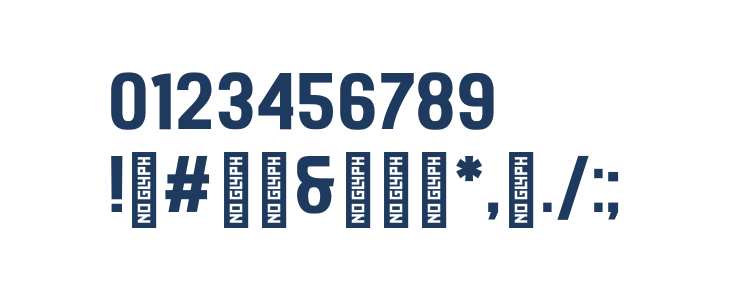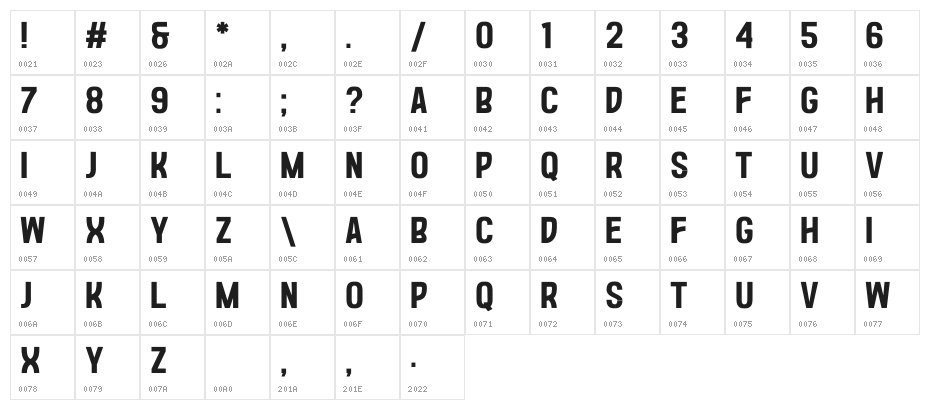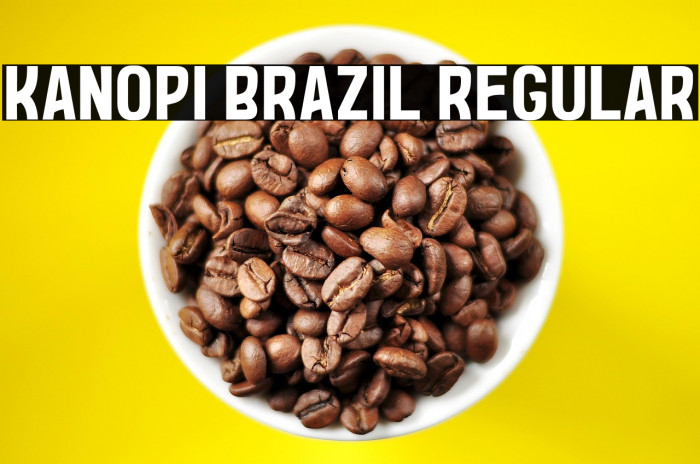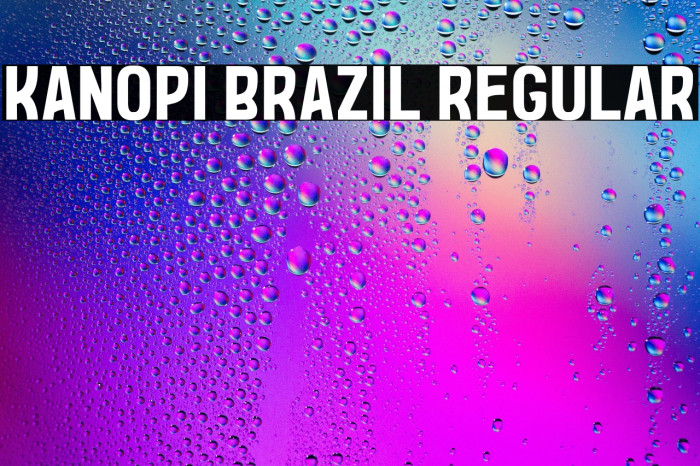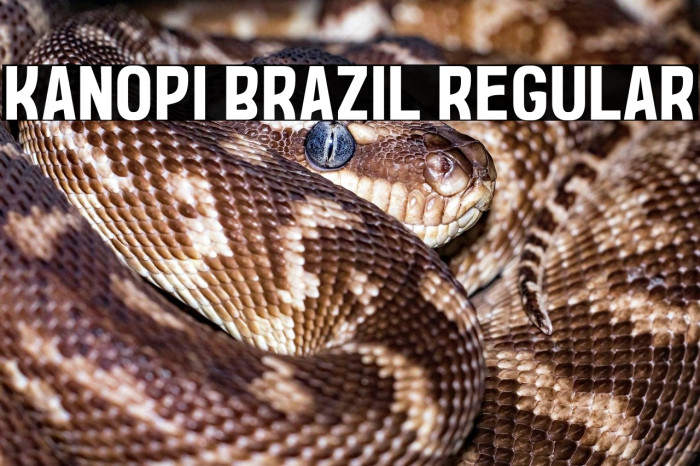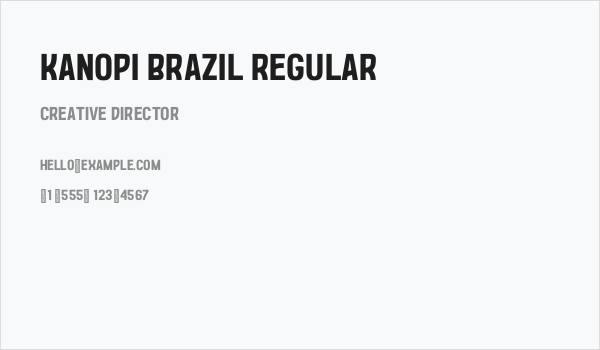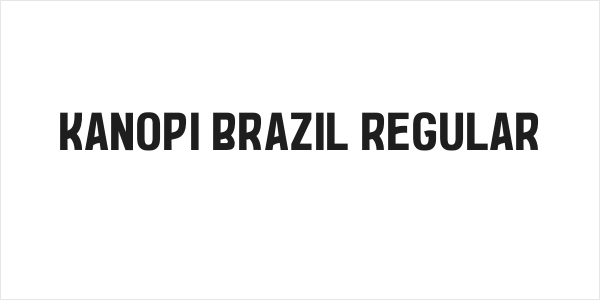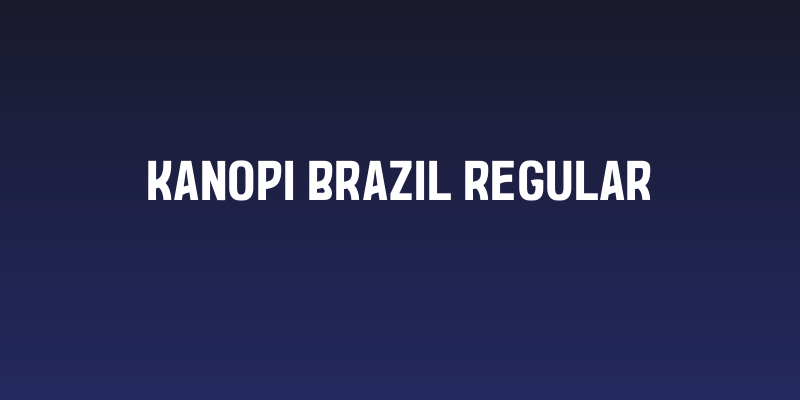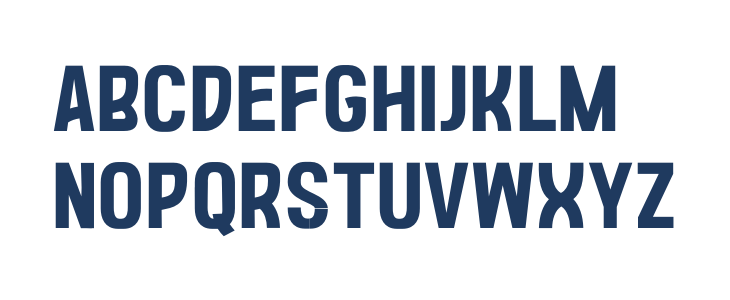
This font features bold, uppercase letters with a strong, impactful presence. The characters are designed with a modern aesthetic, showcasing clean lines and a uniform stroke width that conveys a sense of stability and confidence. The numbers and special characters maintain the same boldness, ensuring consistency across all text elements. The font's design is straightforward, making it highly legible and suitable for various applications where clarity and emphasis are required.
| Proposed Projects | Ideal for headlines, posters, branding materials, and any project requiring a strong visual impact. |